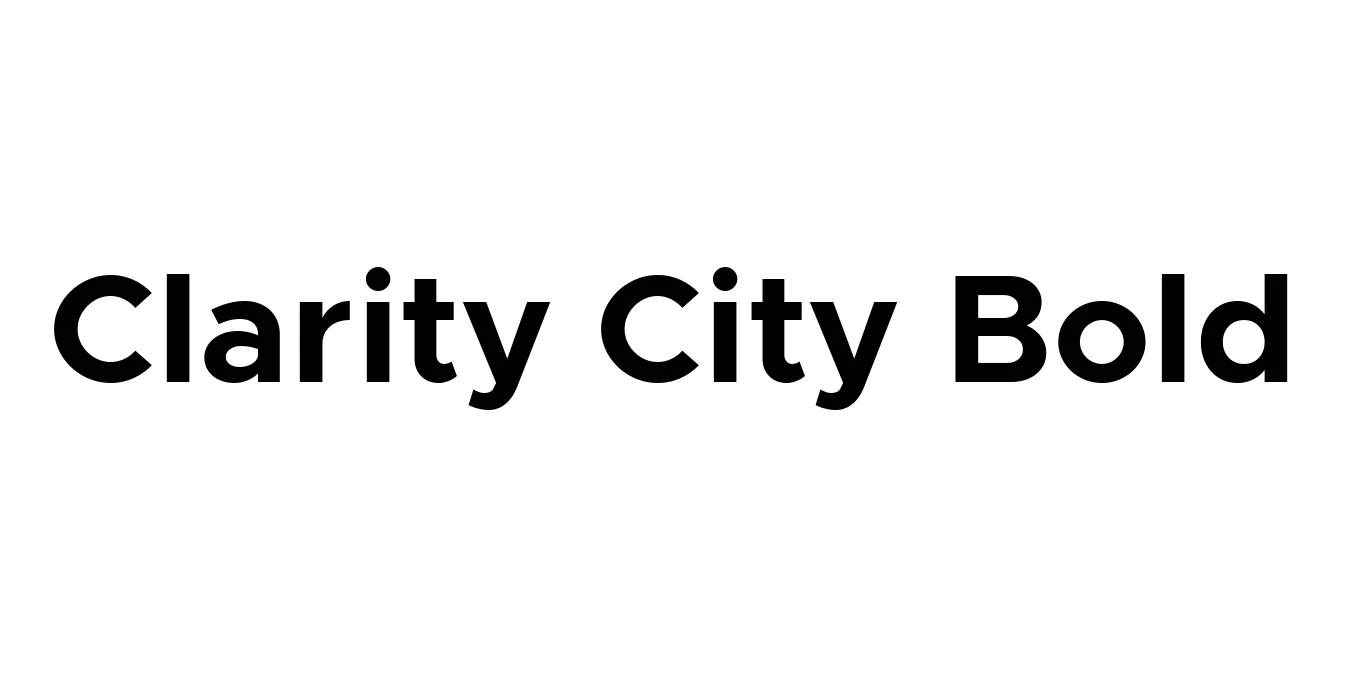
Clarity City Bold
Designed by VMware
| Category | Geometric Sans Serif |
| Designer | VMware |
Clarity City Bold is a robust geometric sans-serif typeface developed by the design team at VMware. It was created as a primary component of the Clarity Design System to provide a consistent, highly legible, and modern typographic solution for enterprise-level software and web applications. The font was specifically engineered to overcome the limitations of standard system fonts, offering better scalability and visual clarity across various digital platforms and screen resolutions.
The Bold weight of this family is particularly noted for its high impact and professional structural integrity. It balances contemporary minimalism with functional design, featuring open apertures and a tall x-height that ensures readability even in data-dense dashboards. Because it was born out of a need for technical precision, Clarity City Bold is an excellent choice for designers looking for a font that feels both authoritative and accessible in a modern tech-driven environment.
Clarity City Bold Best Uses
Optimized for high-density enterprise dashboards and complex application interfaces.
Perfect for strong, clear headlines that require an authoritative and modern tone.
Ideal for tech companies seeking a clean, professional, and trustworthy brand identity.
Effective for call-to-action buttons and promotional banners where clarity is essential.